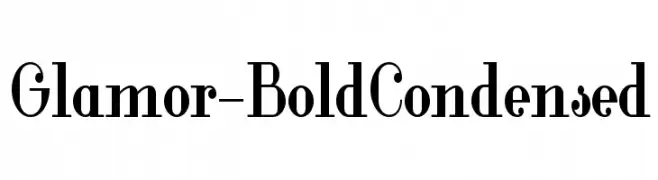
( Fabio Servolo )
A bold, condensed font with a modern and strong aesthetic.
( Shara Weber - sharasfonts.com )
A bold, condensed font with playful yet sophisticated characters.
A bold, condensed, and italic font with a modern and elegant style.
A bold, condensed font with high contrast and elegant flourishes.
A bold, condensed font with strong, impactful strokes.
( Fonts by Rotodesign )
A bold, condensed font with strong, uniform strokes for impactful headlines.
A bold, condensed sans-serif font with a modern and clean design.
( Fonts by Naman Arora )
A bold, condensed, and geometric font with a modern style.
A whimsical, bold, and condensed decorative font with playful curls.
A bold, condensed font with a dynamic slant and tight spacing.